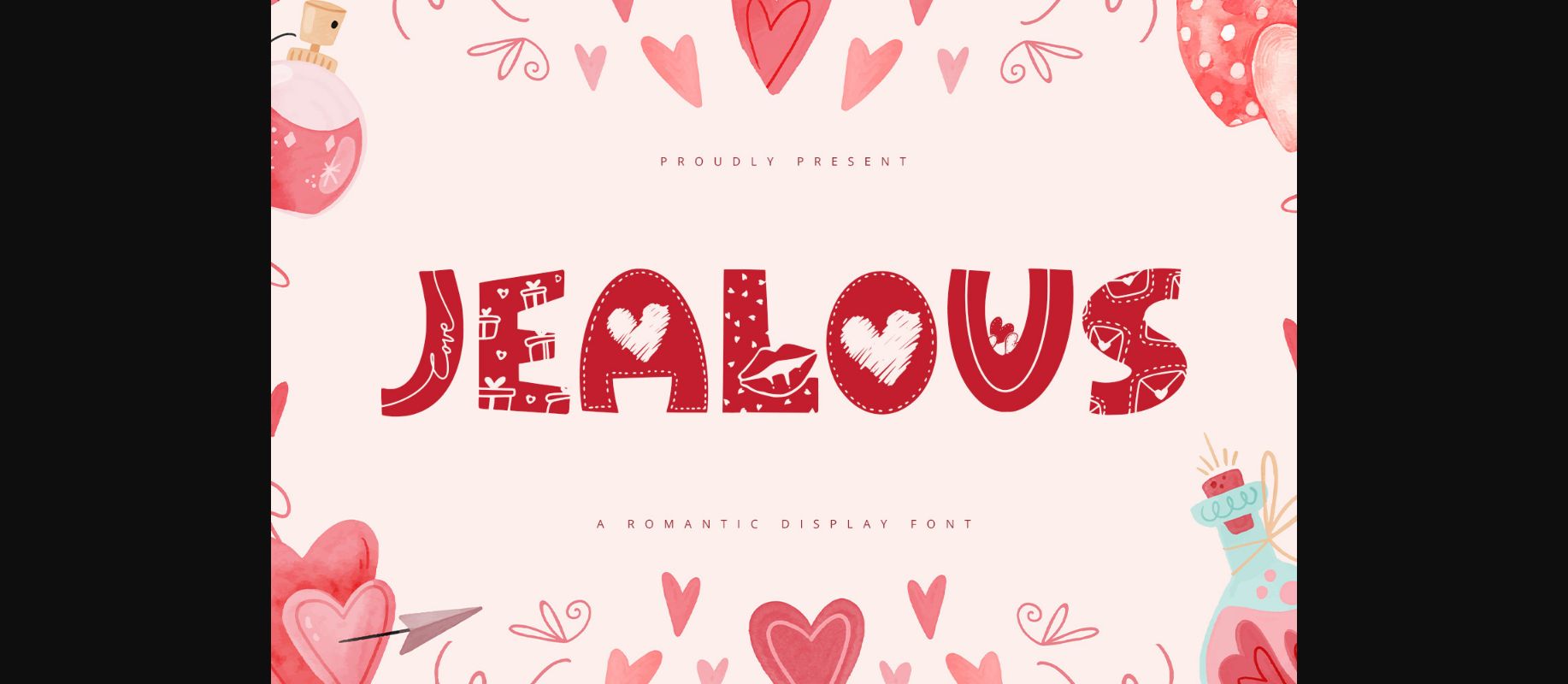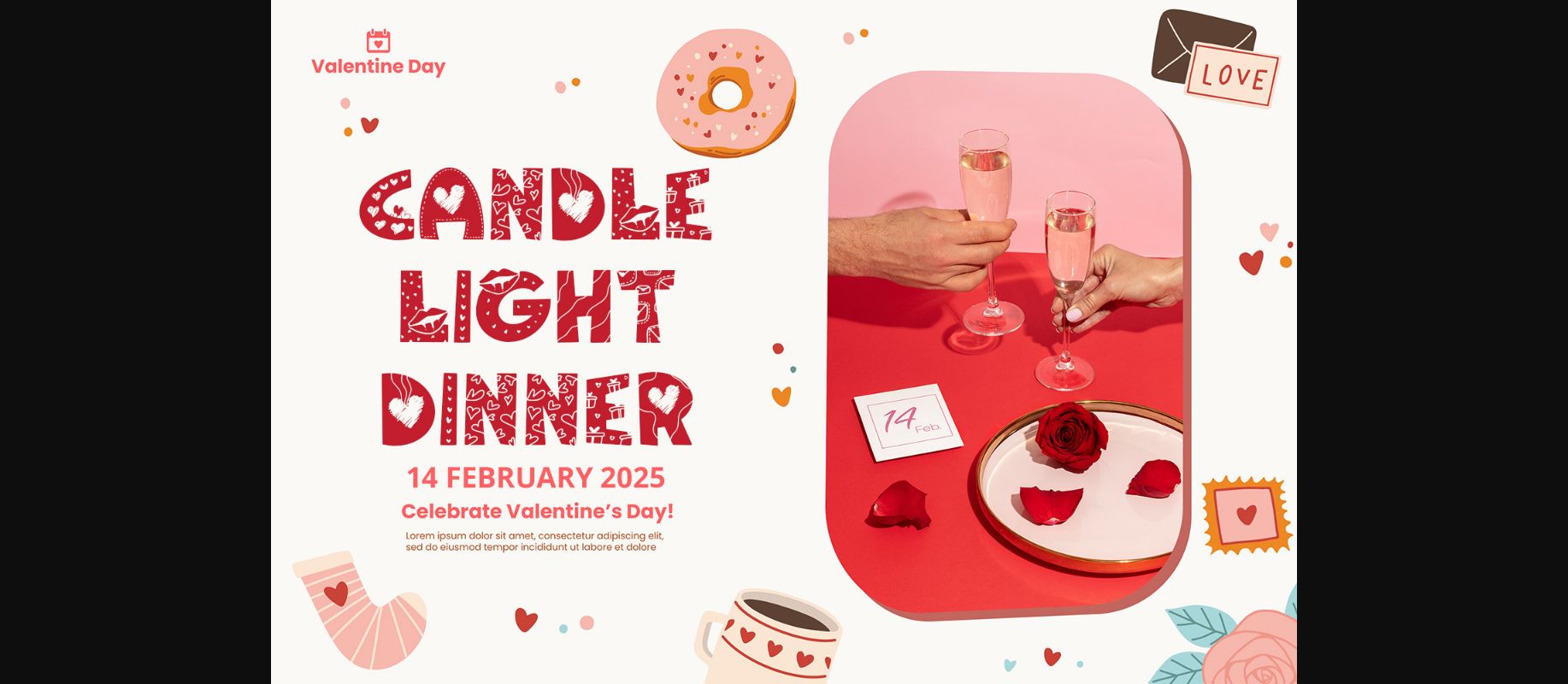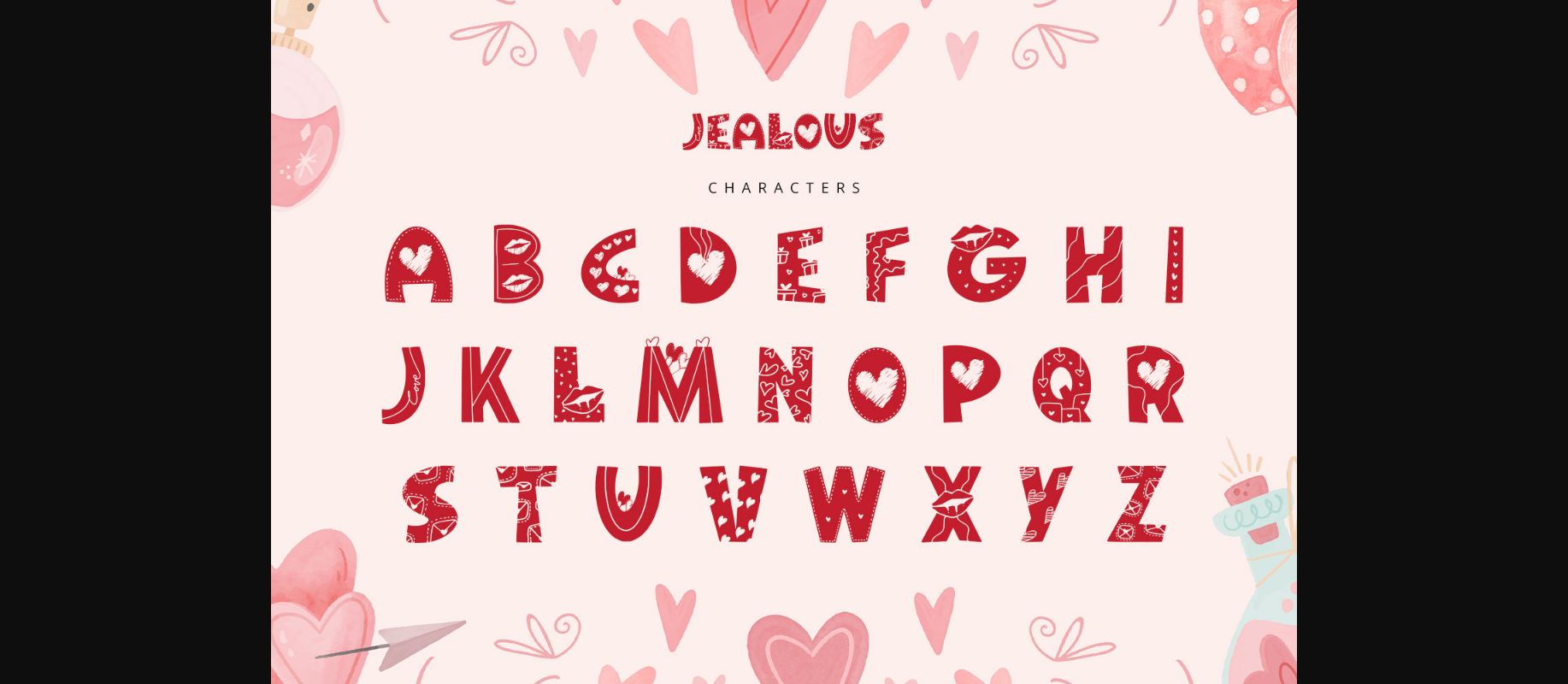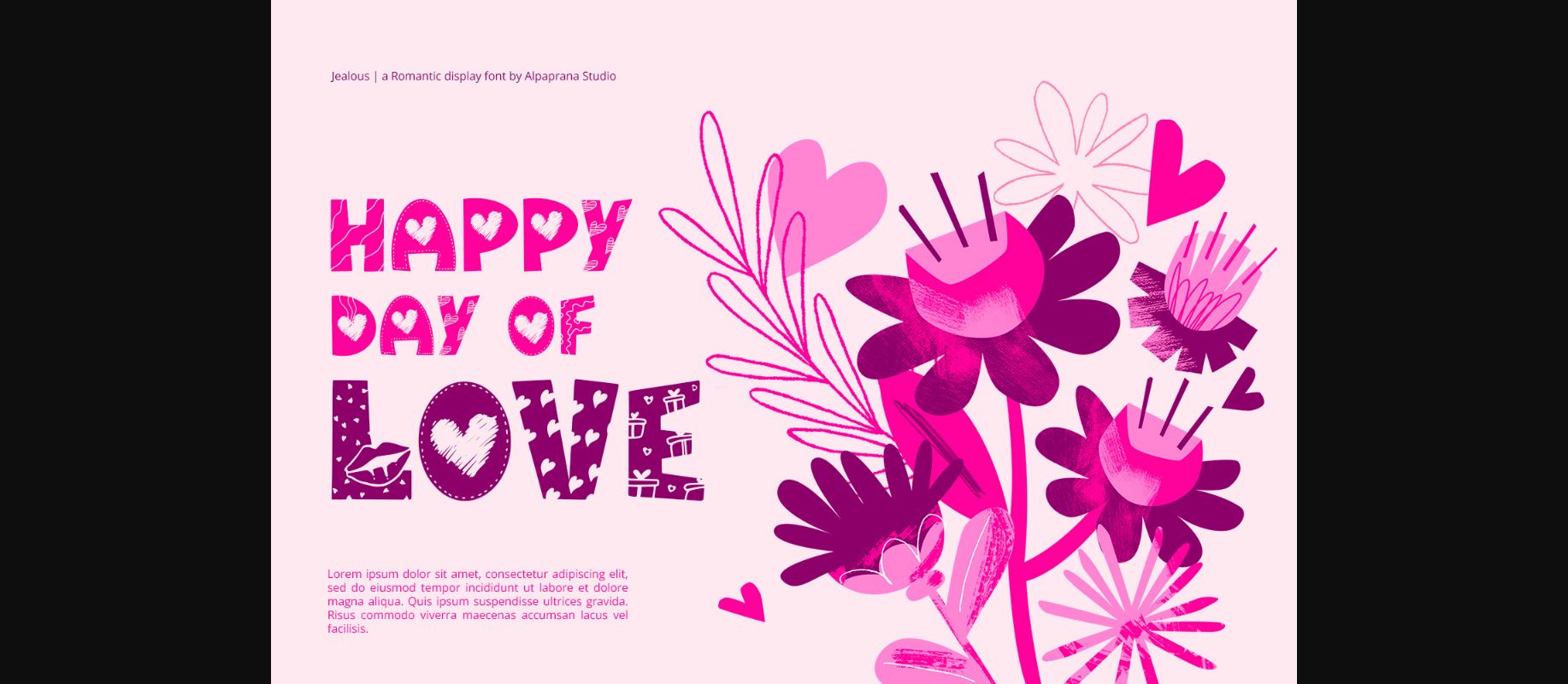
About Jealous Font
Jealous is a romantic display font with romantic and casual feels. It will be perfectly used for Branding, Logo Design, Lettering, Logotype, Clothing, Poster, magazine, packaging, posters, shopping bags, t-shirts, book covers, photography, special events, and other design projects.